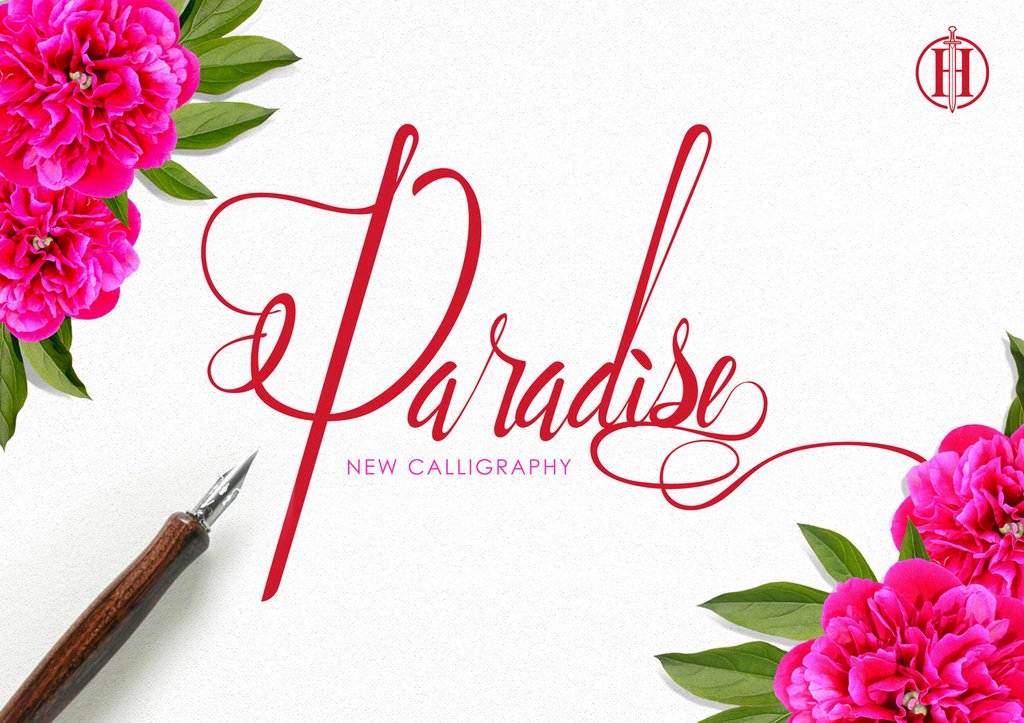
We are pleased to present the Paradise Typeface Font, a script typeface designed and released by QueenType.
This typeface is inspired by handwriting typography that makes this typeface a great choice for a title, quotes, and body text. This typeface contains uppercase letters that work great with kiona font.
This Typeface is quite similar to the calibri font just because of its display usage. But the greater fact about this typeface is that this provides a particular design that provides great video display.
View of Paradise Typeface Font
Let’s have a look at the view of this font, like how does it appear when you apply it to your graphic designs.
It’s a modern-day-day retro bold script referred to as flower child font. This delivered on meal posters, meals menus, and meal packaging. It’s miles, in reality, right for packaging and to any quantity further.
- Presentations
- Web page design
- Title sequences and end credits
- Email marketing templates
- Museum exhibitions
- Video games
- Menus
- PowerPoint presentations
- Posters, banners, and billboards
- Apps
What Type of Font Is Paradise Typeface?
Paradise Typeface is one of the best script fonts that was designed and released by QueenType.